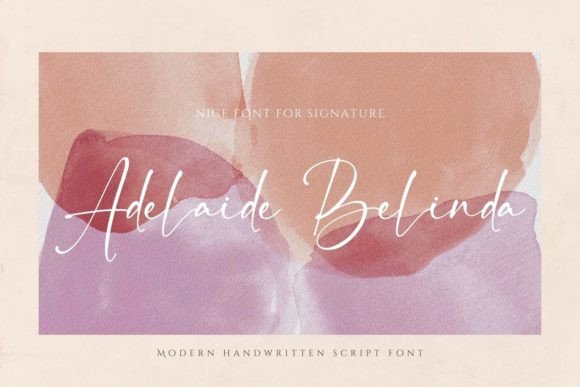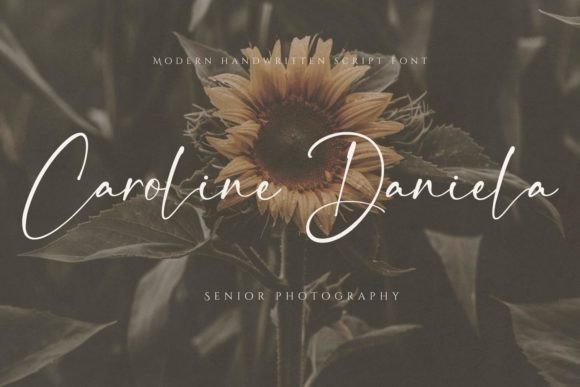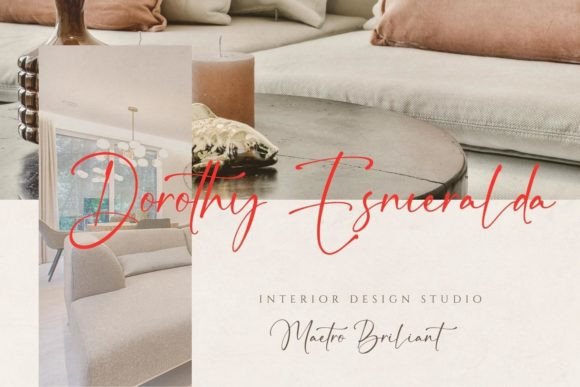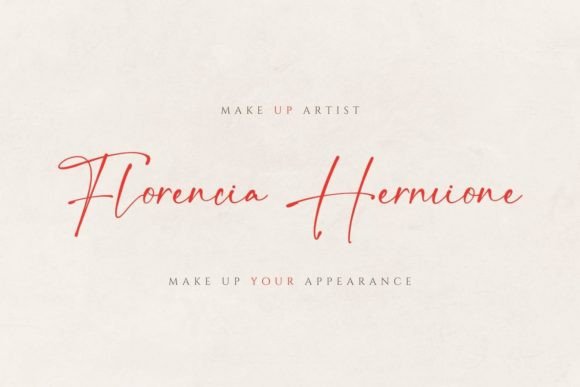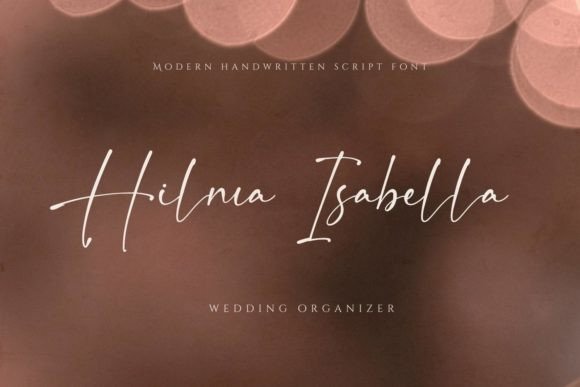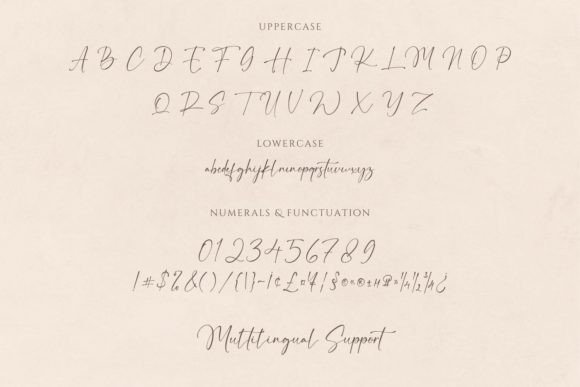
Introduction to Maestro Brilliant Font
Introducing Maestro Brilliant, a stunning script signature handwriting font that adds a touch of elegance to your designs.
With its natural and flowing style, this font is perfect for creating personalized signatures, logos, brand identities, and more Experience the uniqueness and authenticity of your own handwriting with Maestro Brilliant.
Key Features of Maestro Brilliant Font
Why Choose Maestro Brilliant Font?
Maestro Brilliant Font offers exceptional quality and versatility, making it a valuable addition to your design toolkit. Whether you’re creating for personal projects or commercial use, Maestro Brilliant Font delivers professional results.